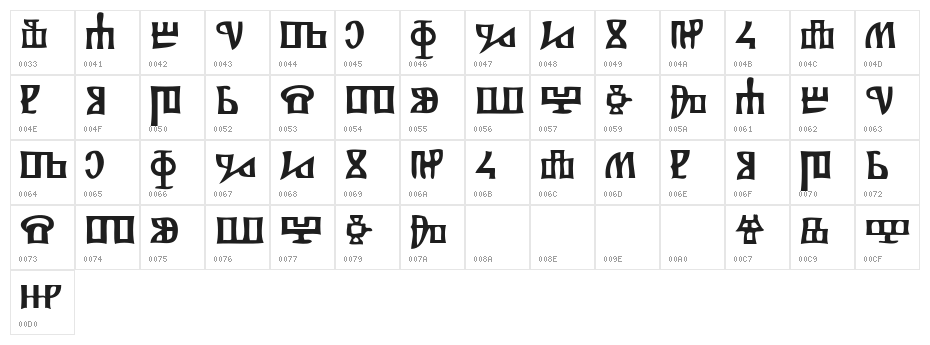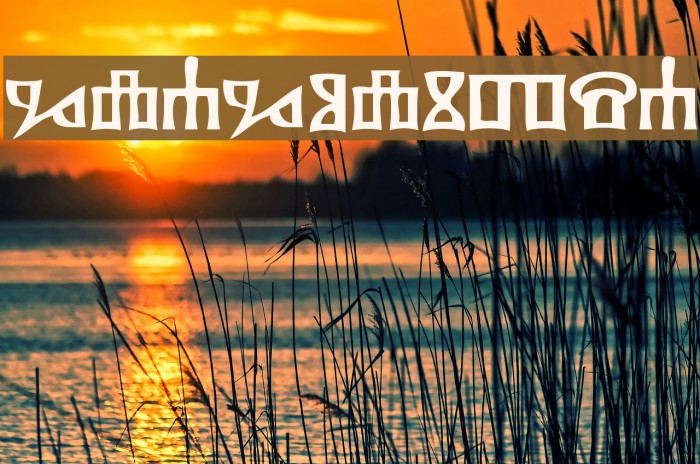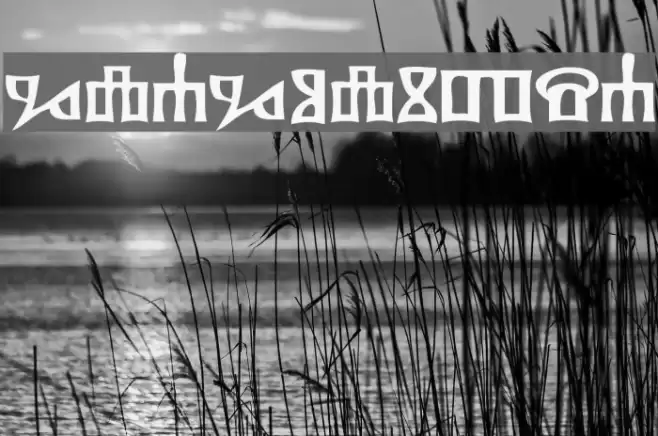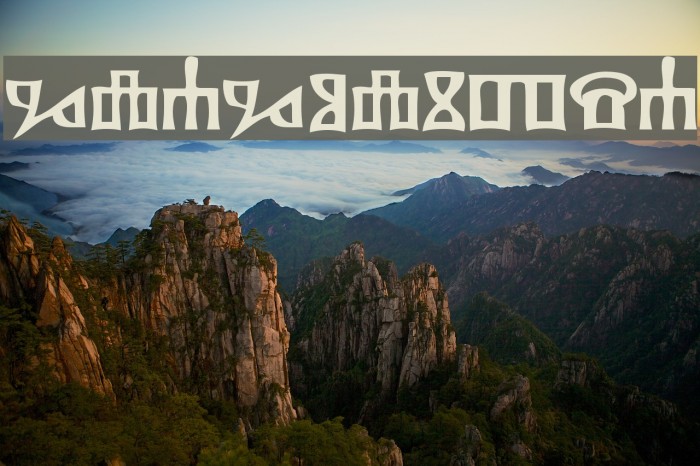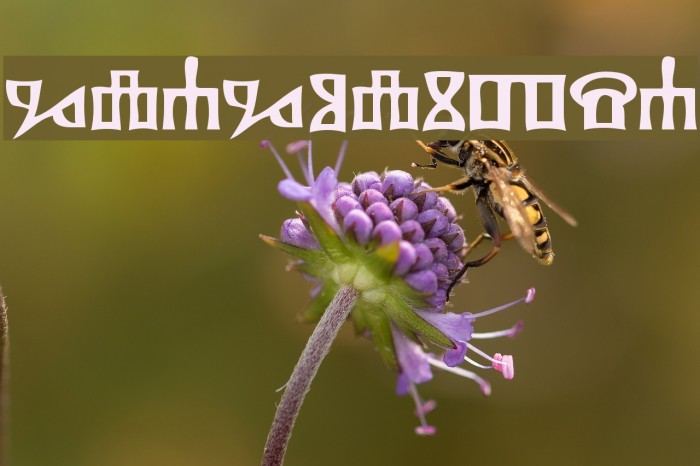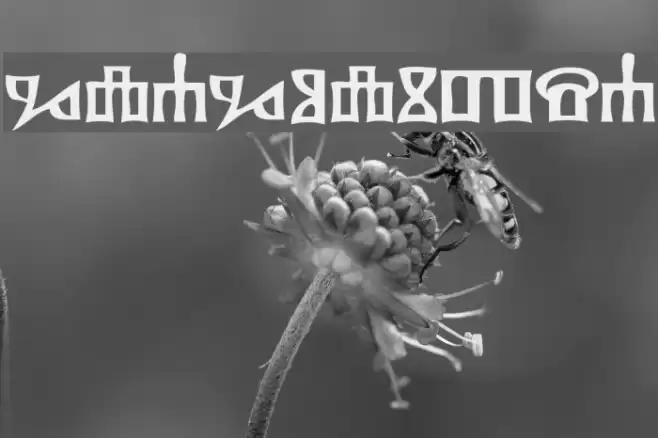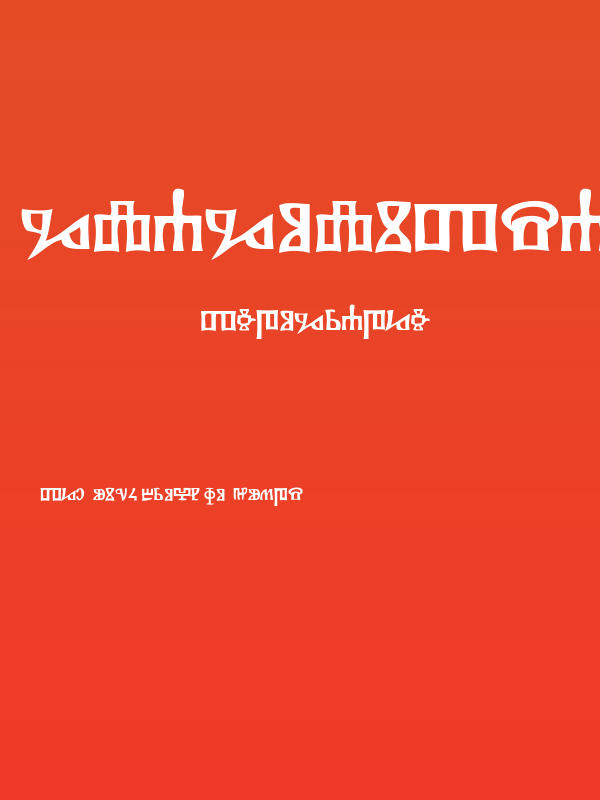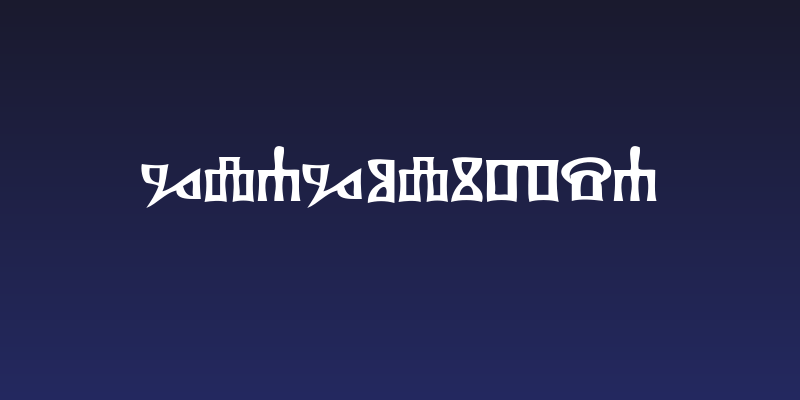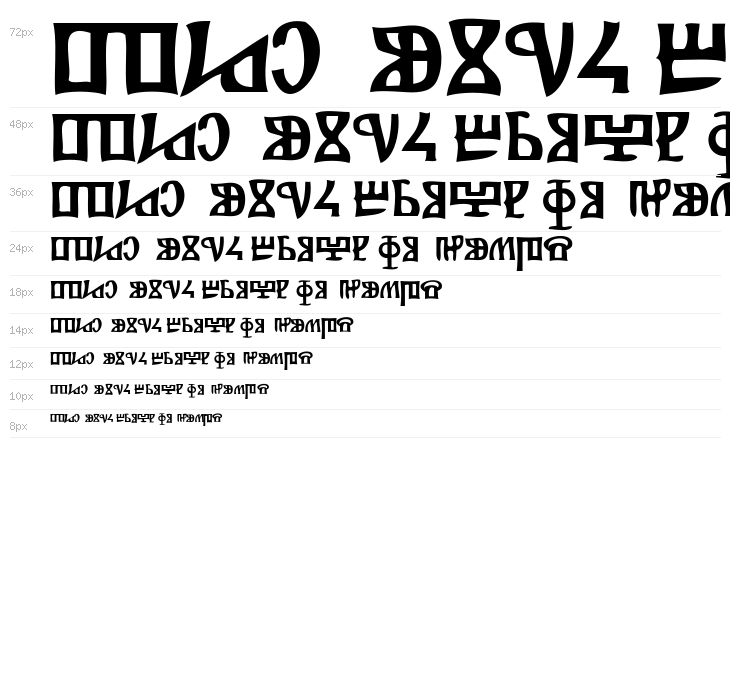
Glagolitsa Font
Glagolitsa Description
This font is a unique and historical script known for its intricate and ornate design. It features a series of angular and rounded shapes that are interconnected, creating a visually complex and decorative appearance. The characters are bold and have a strong presence, with thick strokes and a high level of detail. This script is reminiscent of ancient writing systems and carries a sense of historical significance and cultural heritage. The overall style is decorative and somewhat mysterious, making it stand out in any design context.
| Use Case | Logos, Artistic designs, Cultural projects |
| Proposed Projects | Ideal for historical documents, cultural projects, artistic designs, and educational materials about ancient scripts. |